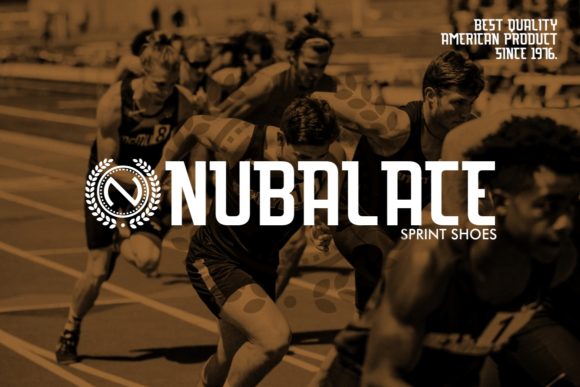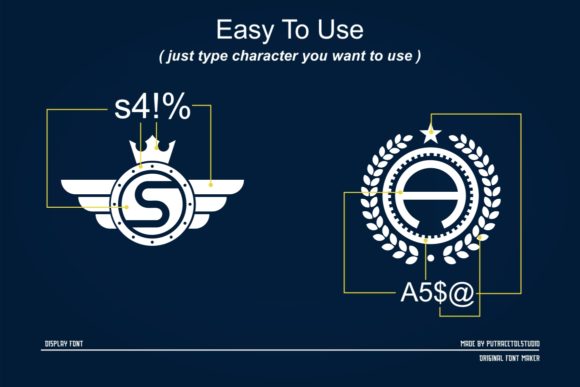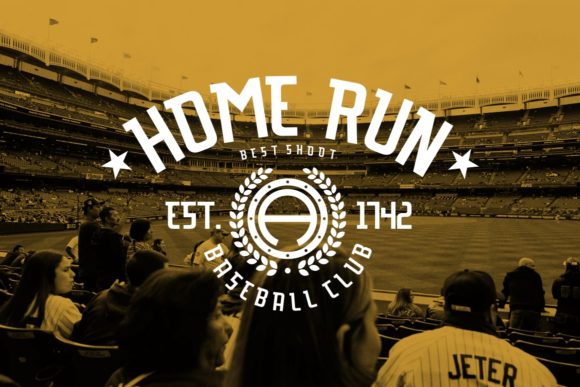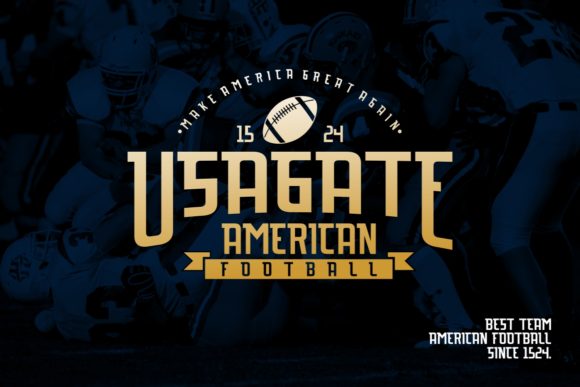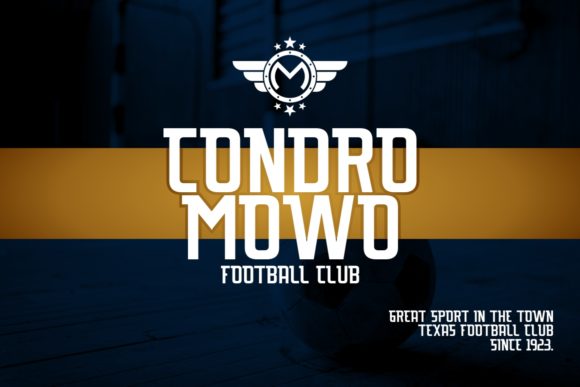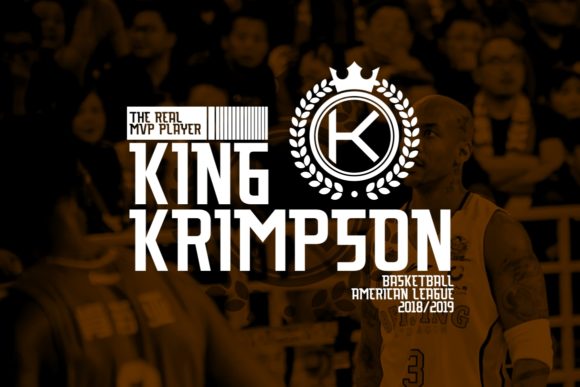
Unleash the Power of Eurolite Font
You’ve spent hours brainstorming, sketching, and perfecting your design. But as you start to think about the typography, you hit a roadblock. The right font can make or break the entire look and feel of your project. That’s why I’m excited to introduce you to Eurolite, a sporty and dynamic display font that’s about to revolutionize your design game.
Eurolite is more than just a font – it’s a statement. With its sophisticated approach to design, it adds a touch of elegance and sophistication to any project. Whether you’re working on a sports brand, a fashion label, or a tech startup, Eurolite Font is the perfect choice to give your brand a competitive edge.
As a designer, you know how hard it is to find the perfect font that captures the essence of your brand. That’s why Eurolite Font is such a valuable addition to your toolkit. With its versatility and style, you’ll be able to create designs that stand out from the crowd and leave a lasting impression.
Eurolite Font Key Features
• Unique Characteristics: Eurolite Font features a sleek, modern design with clean lines and a minimalist aesthetic, making it perfect for corporate branding, digital products, and editorial content.
Eurolite Font Review
Overall, I’m quite impressed with the Eurolite Font. It has a clean and modern aesthetic that’s perfect for digital applications. Here are some of its standout features: ✨
• Sleek and Modern Design: Eurolite Font has a minimalist design that makes it easy to read, even at small font sizes.
• Highly Versatile: This font is suitable for a wide range of applications, from web design to print materials.
• Easy to Customize: Eurolite Font comes with various weights and styles, making it easy to customize to fit your design needs.
• Lack of Personality: While the design is modern and clean, it may lack the unique personality that some designers look for in a font.
• : The font may not be the best choice for applications that require a lot of expressiveness, such as titles or headings.
Overall, I’d give the Eurolite Font 4 out of 5 stars. It’s a solid choice for digital applications, but may not be the best fit for every design project.
Getting the Most Out of Eurolite Font
For optimal results, use the Eurolite font in combination with a clean and simple design aesthetic. Avoid using it with too many colors or complex graphics, as this can make the font difficult to read.
The Eurolite font is commonly used for:
• Titles and headings
• Branding and logos
• Digital signage and display graphics
• Print materials such as business cards and brochures